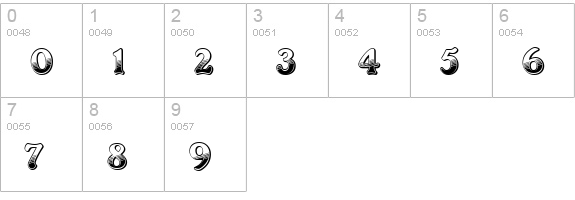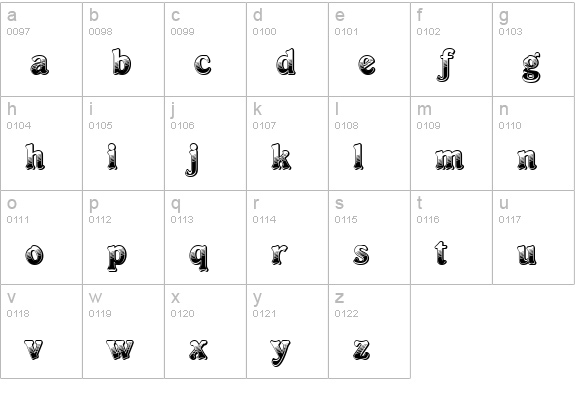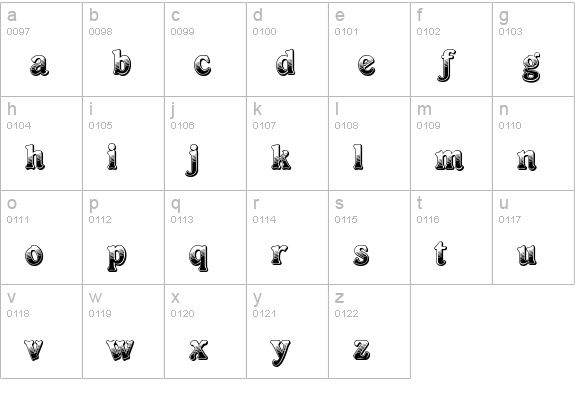
Cabaret ICG Font Details
Cabaret ICG is a captivating and enchanting font that effortlessly combines the elegance of vintage typography with a modern twist. This font exudes a sense of sophistication and charm, making it the perfect choice for projects that require a touch of nostalgia and elegance. The beautifully crafted letterforms of Cabaret ICG feature delicate curves and graceful strokes, reminiscent of the golden age of typography. Its unique design allows it to stand out in any setting, whether it's used for professional branding, wedding invitations, or artistic projects. What sets Cabaret ICG apart is its versatility and adaptability. It seamlessly transitions from bold headlines to delicate body text, ensuring that every word is showcased in its full glory. This font's timeless appeal is further enhanced by its wide range of ligatures and alternate characters, allowing for endless creative possibilities. And the best part? Cabaret ICG is freely available to download at FontsMarket.com. This means that you can effortlessly add a touch of elegance and nostalgia to your design projects without breaking the bank. Whether you are a professional designer or a passionate hobbyist, this font is a valuable addition to your creative arsenal. So why wait? Download Cabaret ICG today and let its captivating charm transport your designs to a bygone era. Unleash your creativity and discover the endless possibilities that this font has to offer.